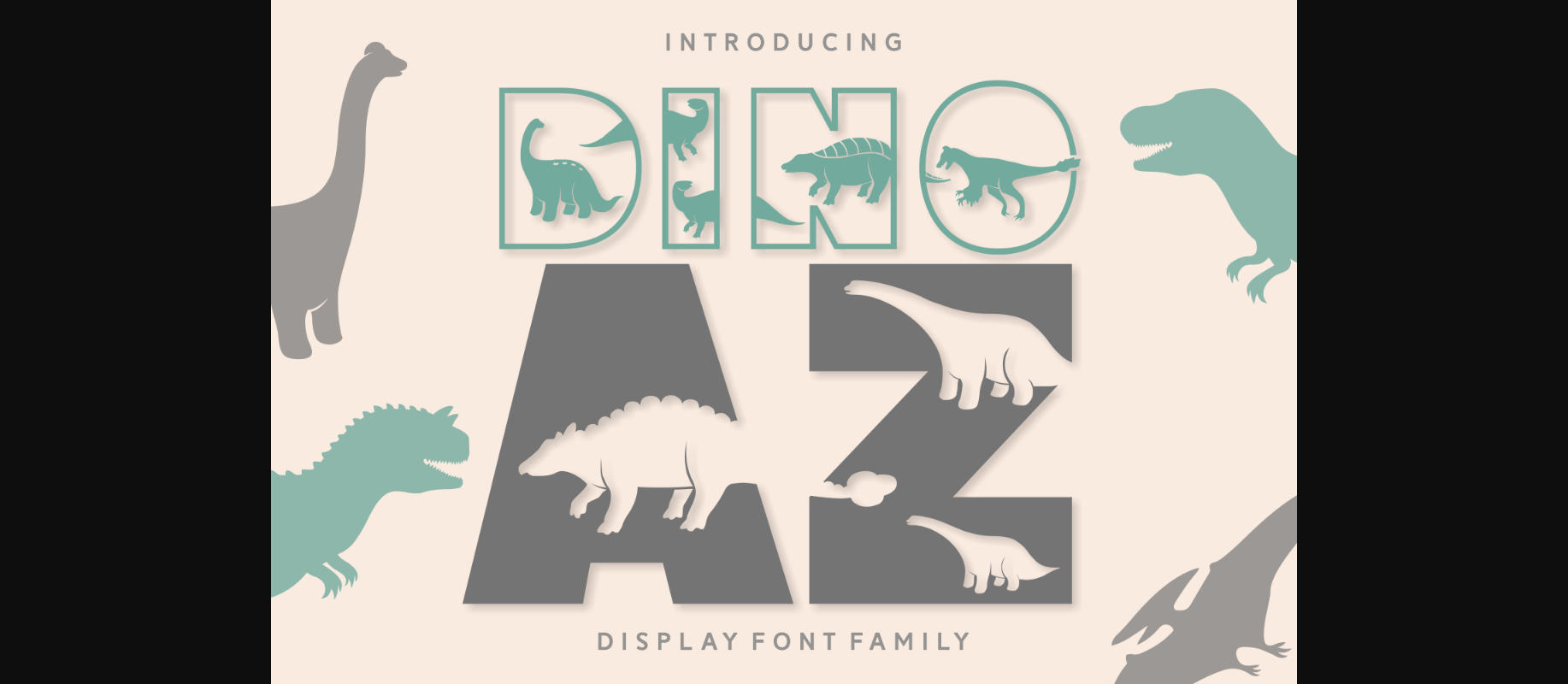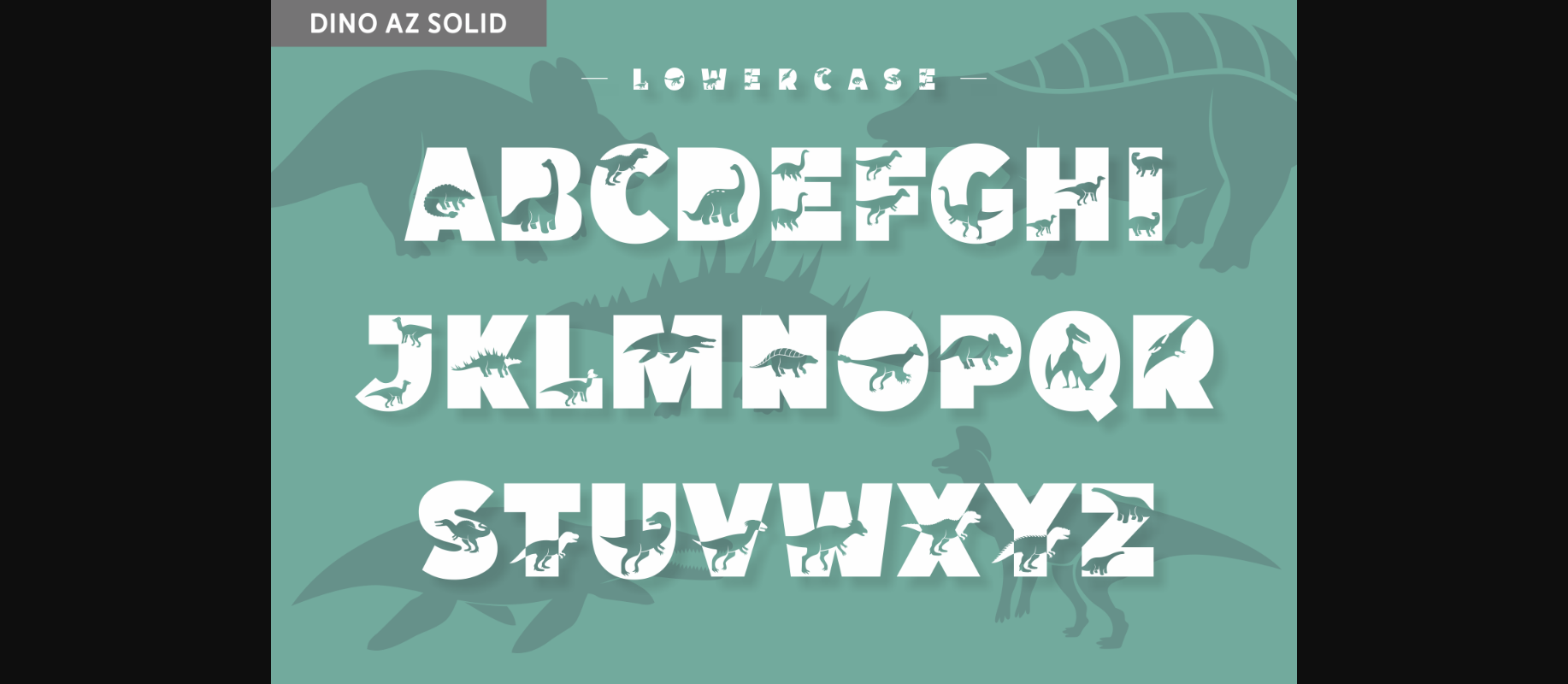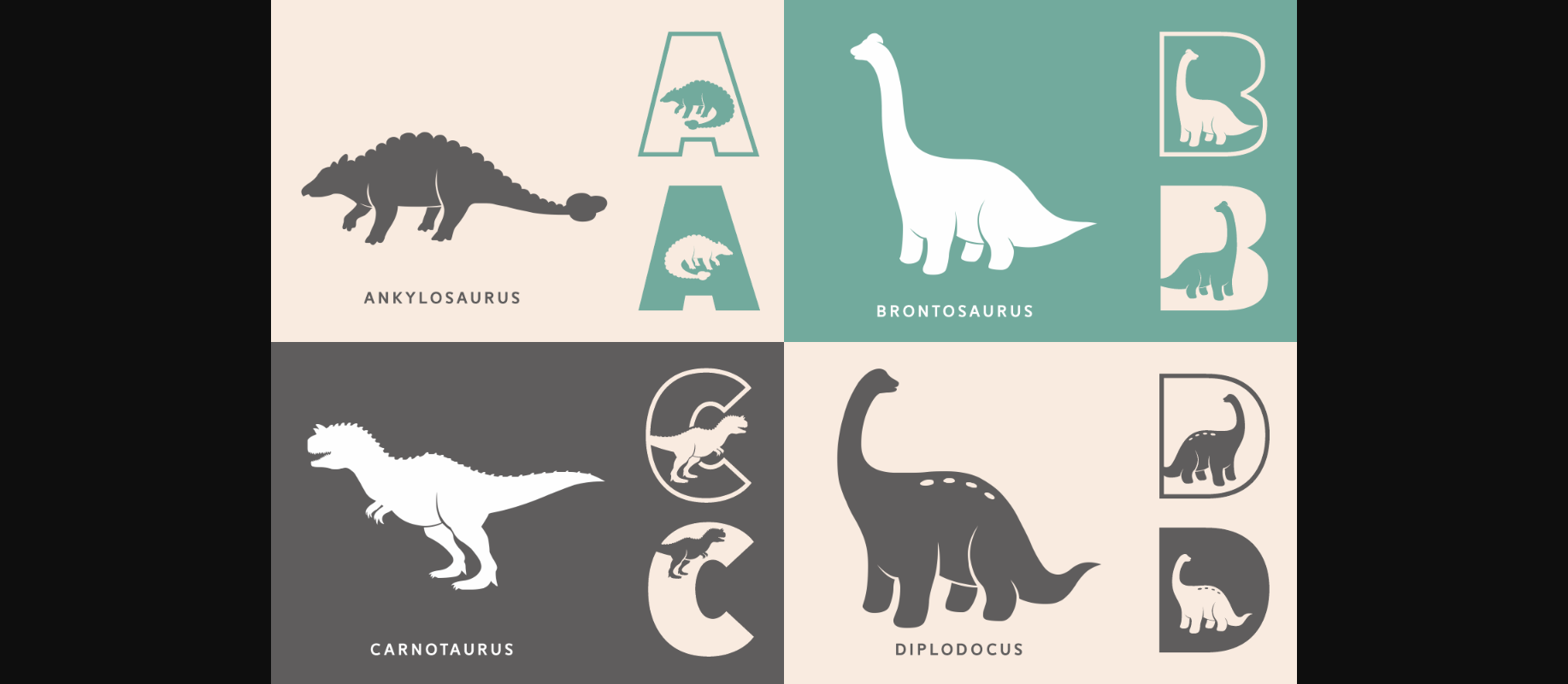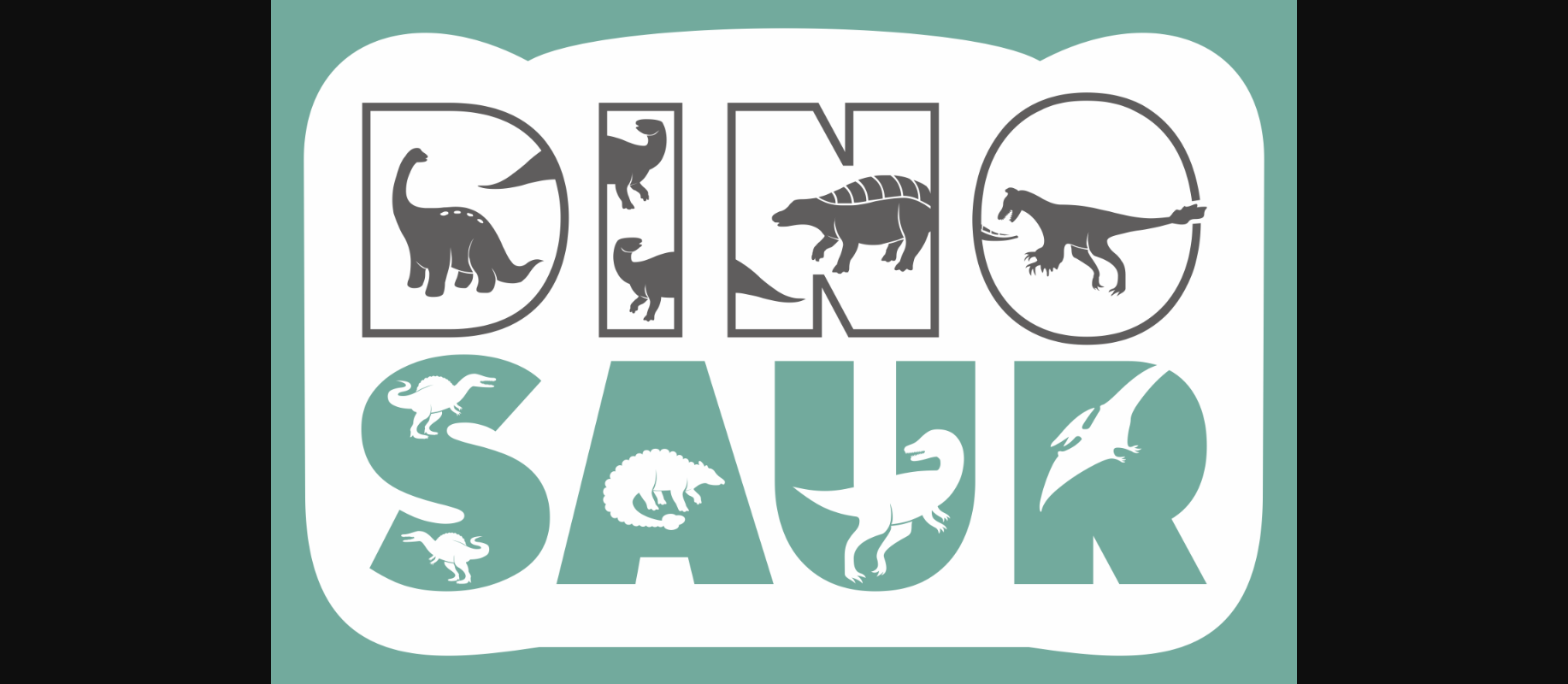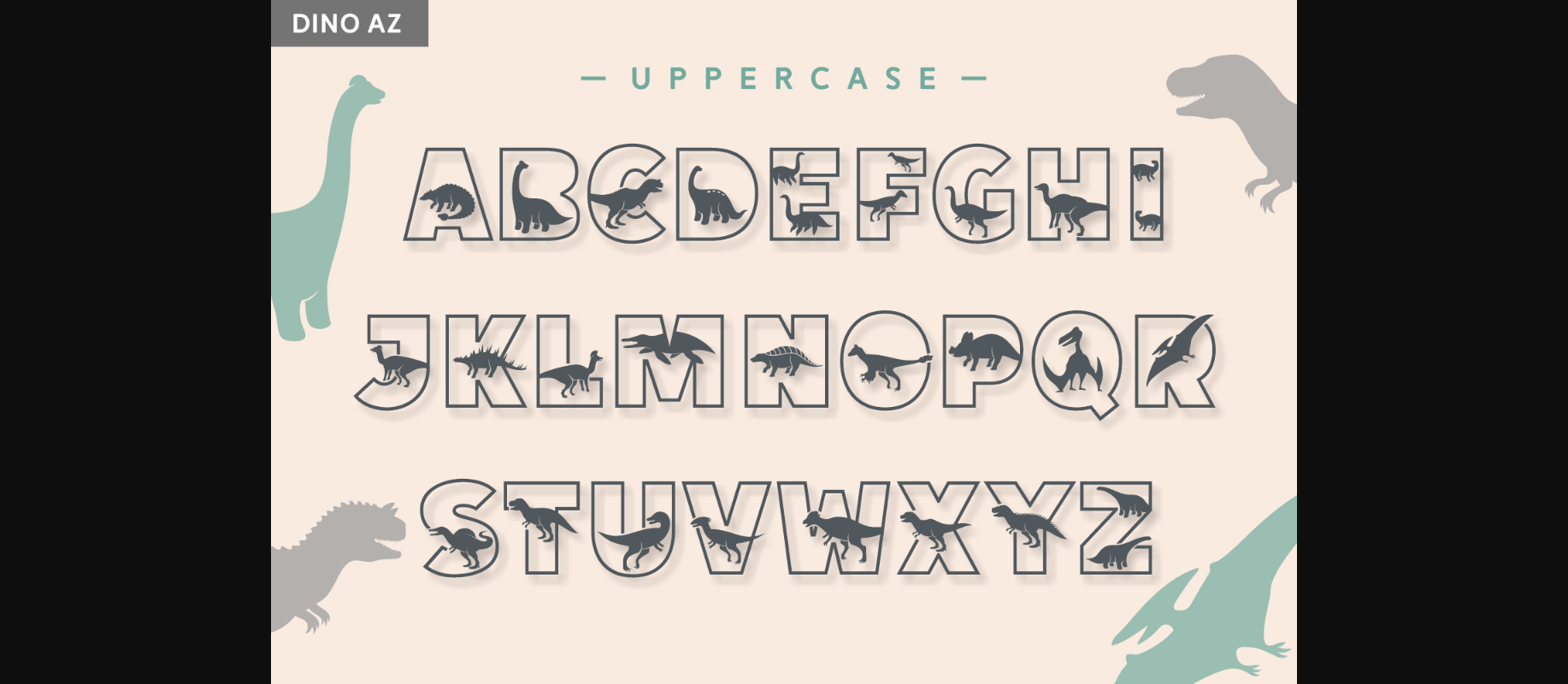
About Dino Az Font
Dino Az is a cool, uniquely shaped and interesting decorative font. It embodies playfulness and authenticity and is the perfect choice for any children activity or school project. This font is PUA encoded which means you can access all of the glyphs and swashes with ease!